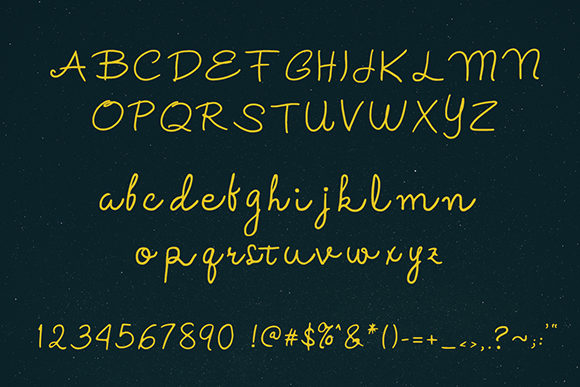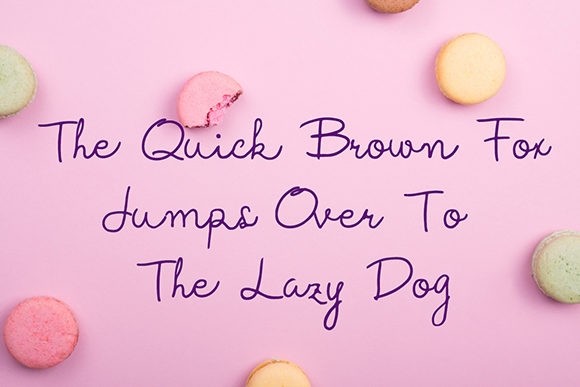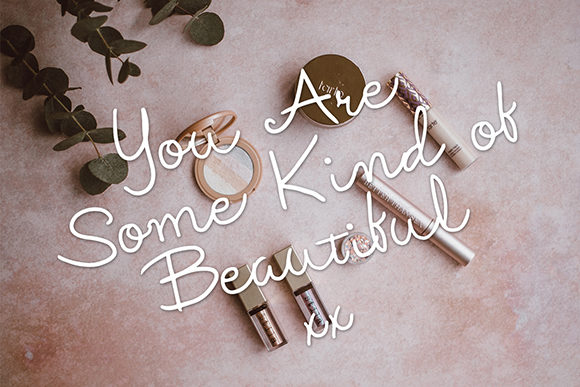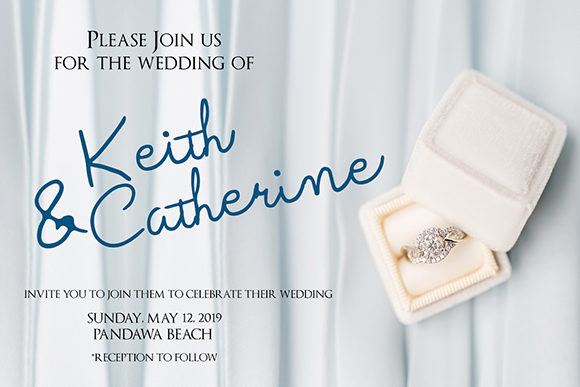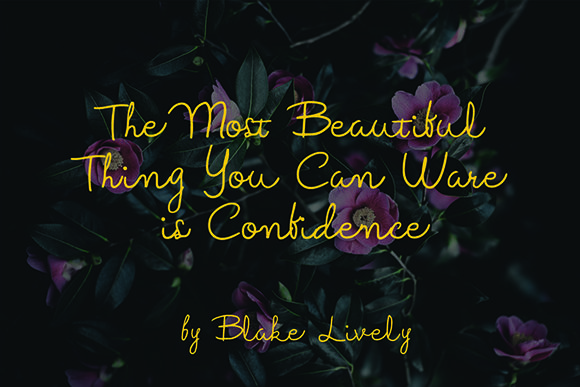
Alauna Font
About Alauna Font
Alauna is an amazingly light handwritten font with an authentic twist. It will turn any design project into a stand out!